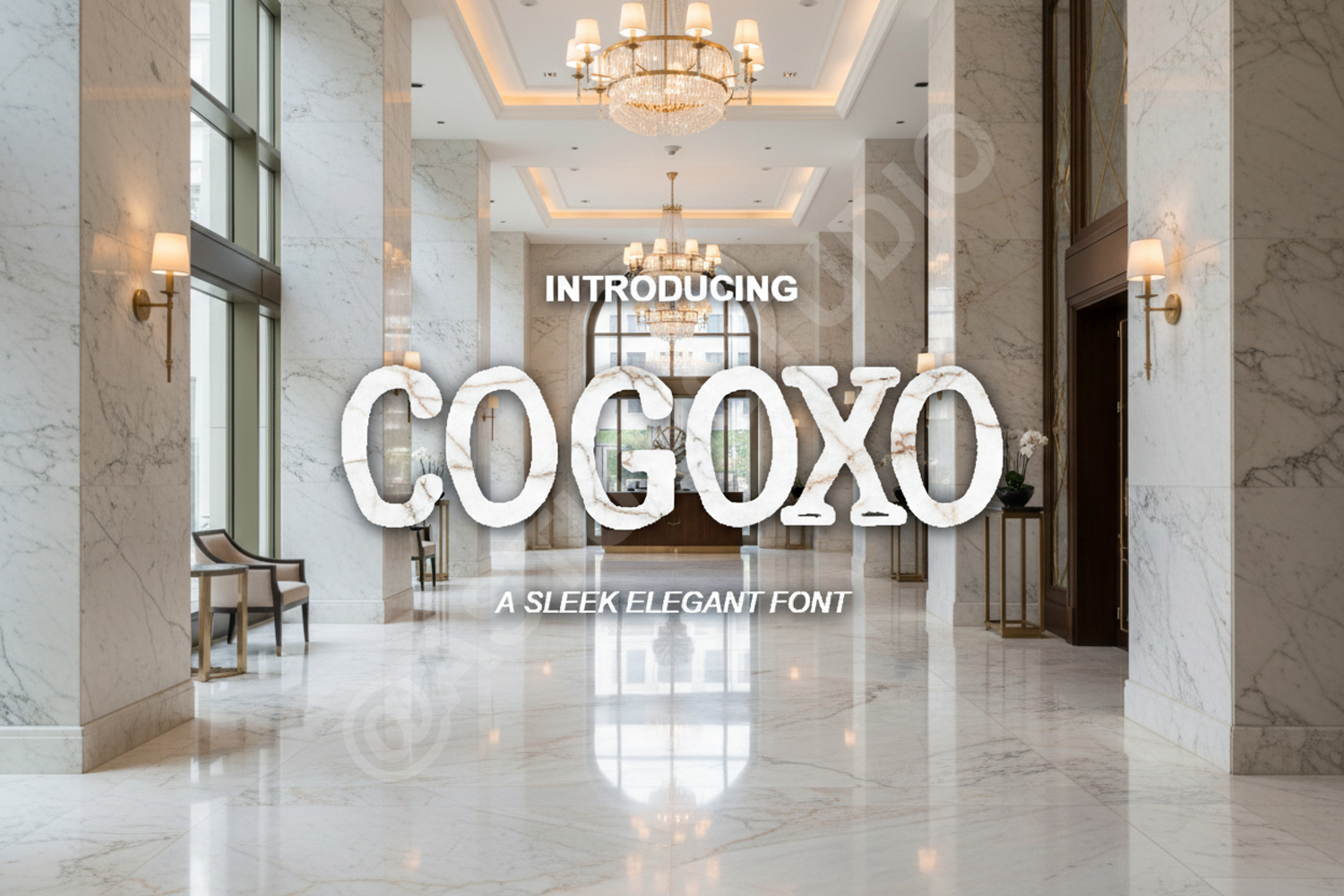
Cogoxo | Sophisticated Modern Sans Serif
Cogoxo
Elevate your creative projects with Cogoxo, a premium modern sans serif typeface designed for high-end aesthetics. Cogoxo combines minimalist geometry with subtle, sophisticated details, making it a versatile choice for designers seeking a clean yet impactful look. Whether you are crafting a luxury brand identity or a sleek digital interface, this font provides the professional edge your work deserves.
- Smooth and Crisp Letterforms
- Luxury Branding and Identity Systems
- Modern Logo Design and Wordmarks
- High-end Editorial Layouts and Magazines
- Sophisticated Wedding Invitations and Stationery
- Minimalist Social Media Graphics and Web Design